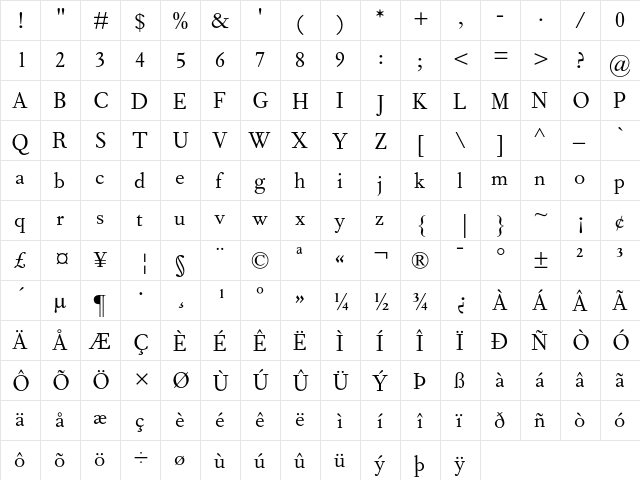
Fournier MT Regular Tall Caps
Design Context for Fournier MT Typeface
Fournier MT takes a measured approach to typography — its balanced proportions and neutral character make it a reliable workhorse for both digital and print work.